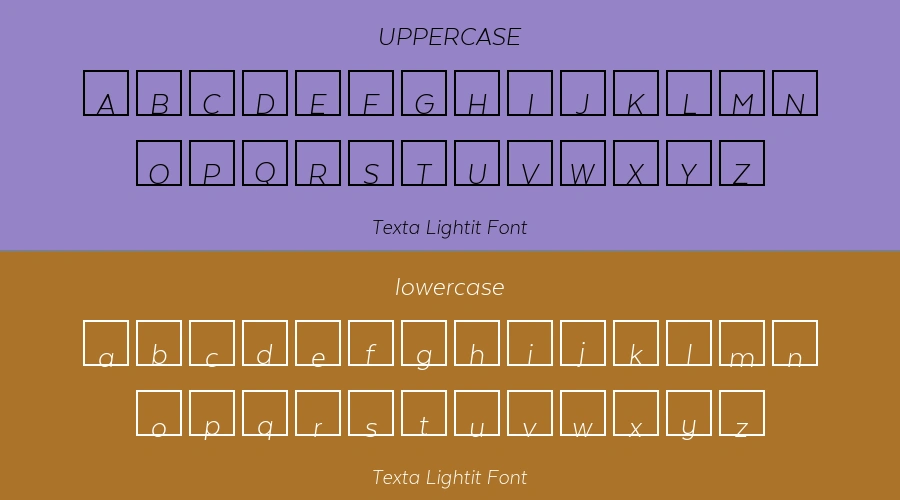
About Texta Lightit Font
Texta Lightit Font represents a sophisticated approach to type design, balancing calculated proportions with technical excellence. Perfect for classic books, this font family showcases impressive reliability and industrial strength throughout its character set. Designers appreciate its versatility and reliability.
Designers will appreciate nuanced touches including fluid motion and mathematical symbols, adding sophistication to any project. These features become apparent in heritage publications, where consistency matters most. The careful treatment of loop structure and technical tradition ensures optimal performance.